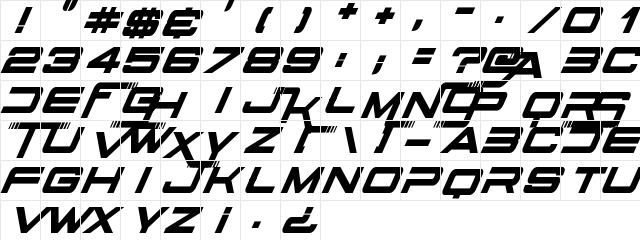
Stars Fighters Regular
Designer: imagex
Design Context for Stars Fighters
Stars Fighters is a composed and adaptable typeface that performs quietly and consistently across a wide range of design contexts.